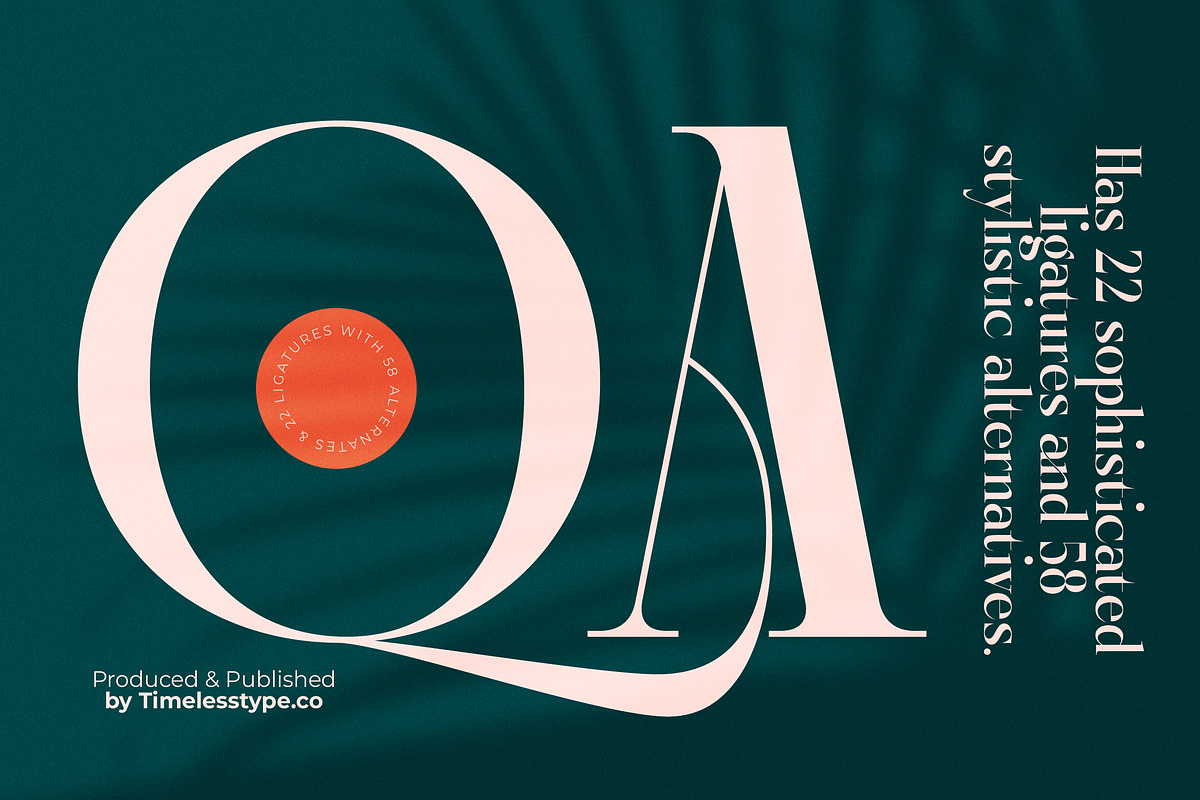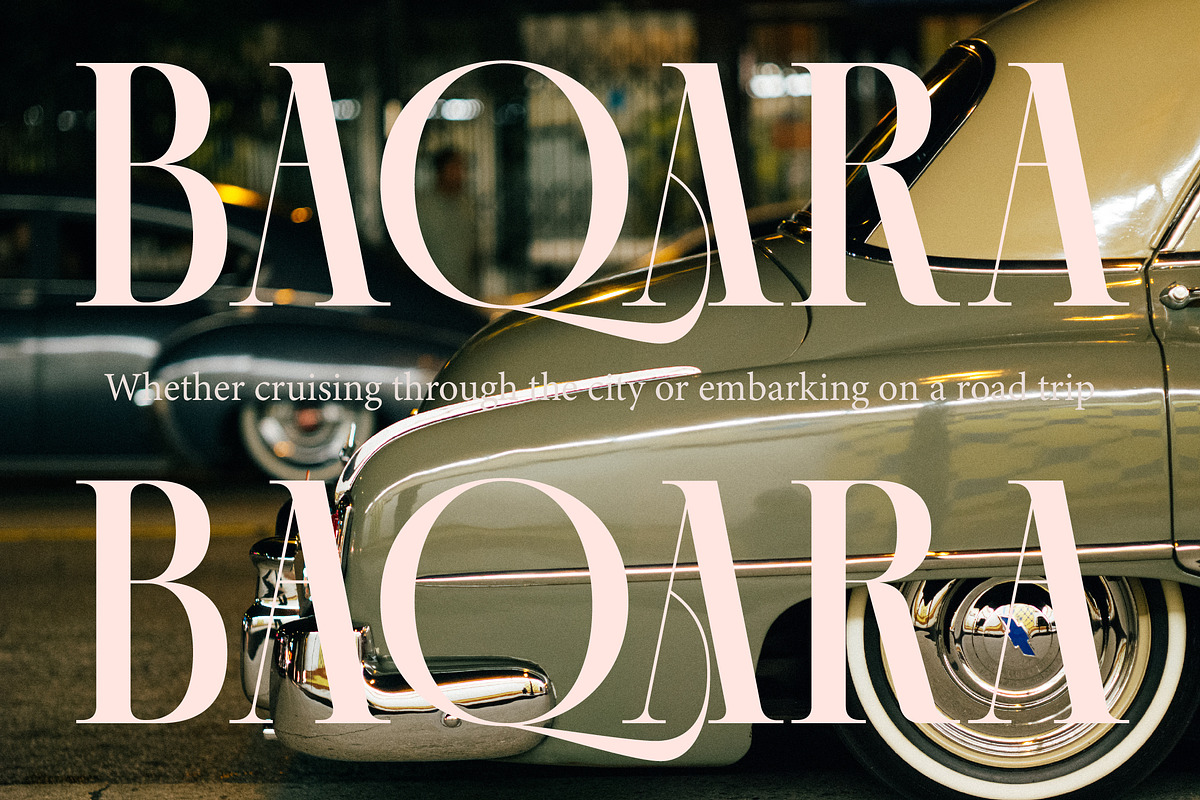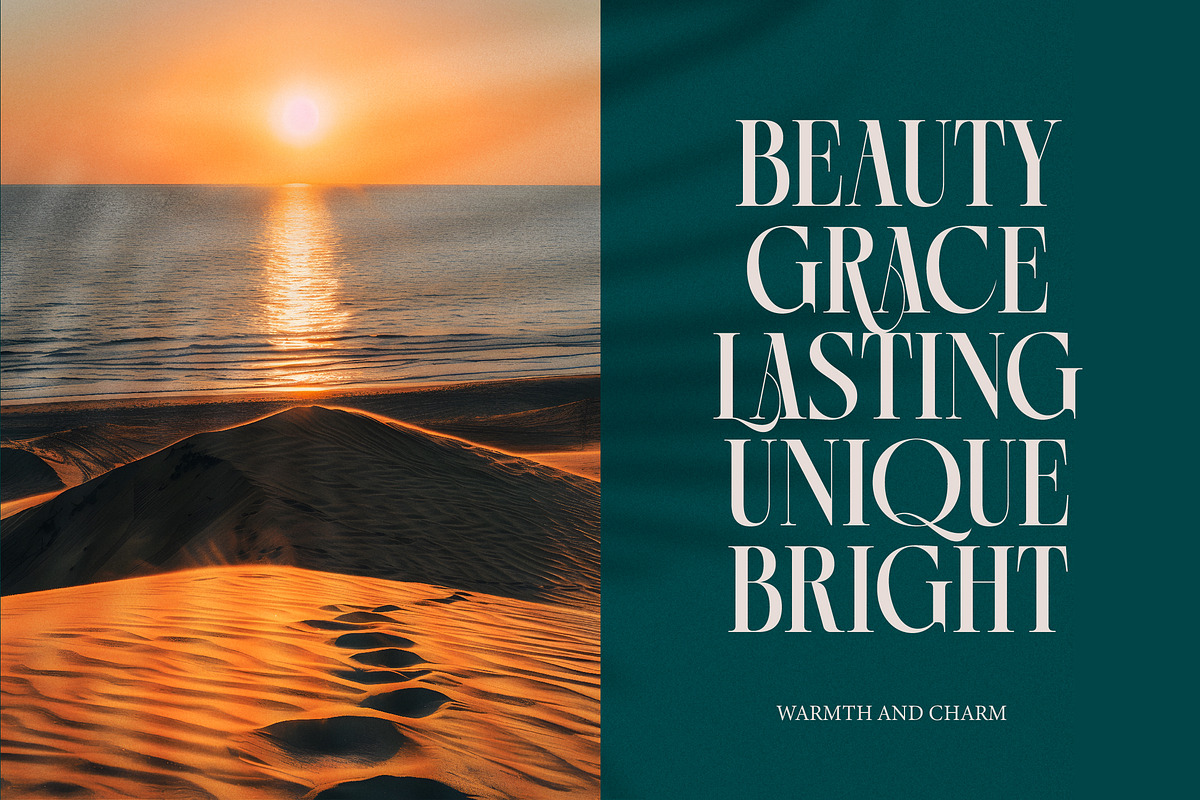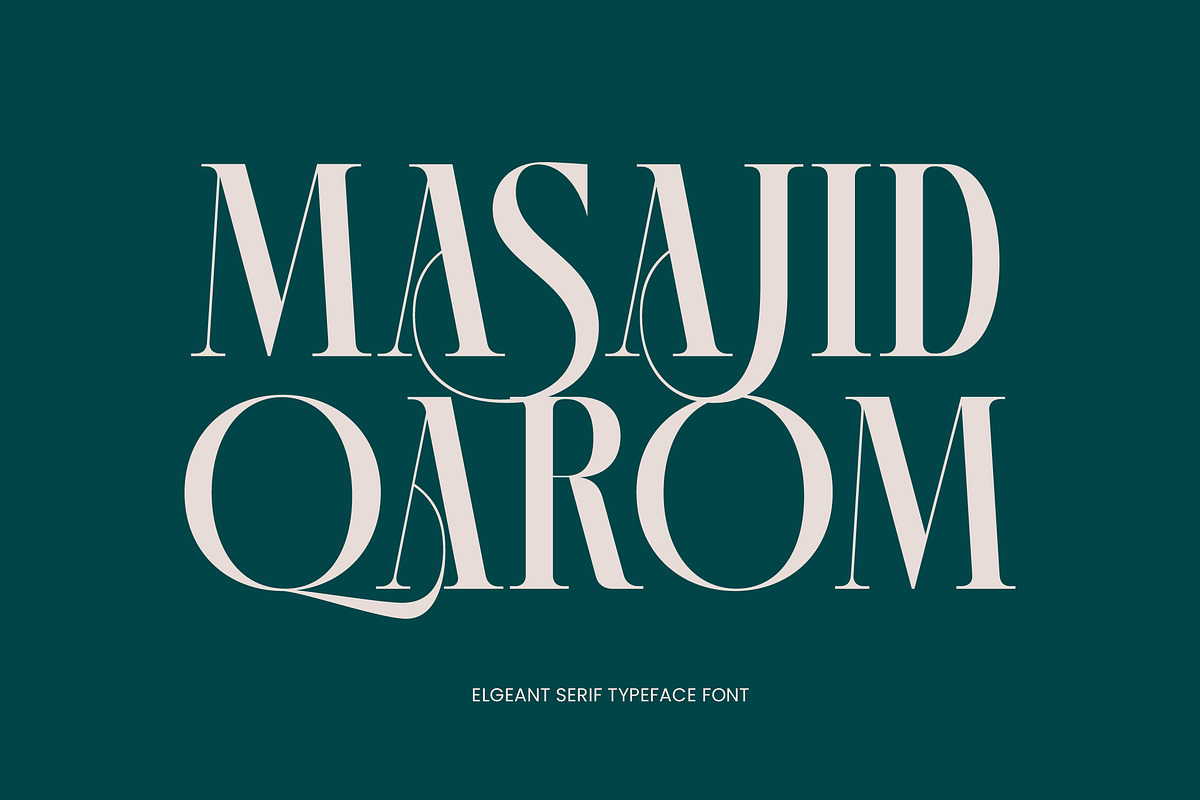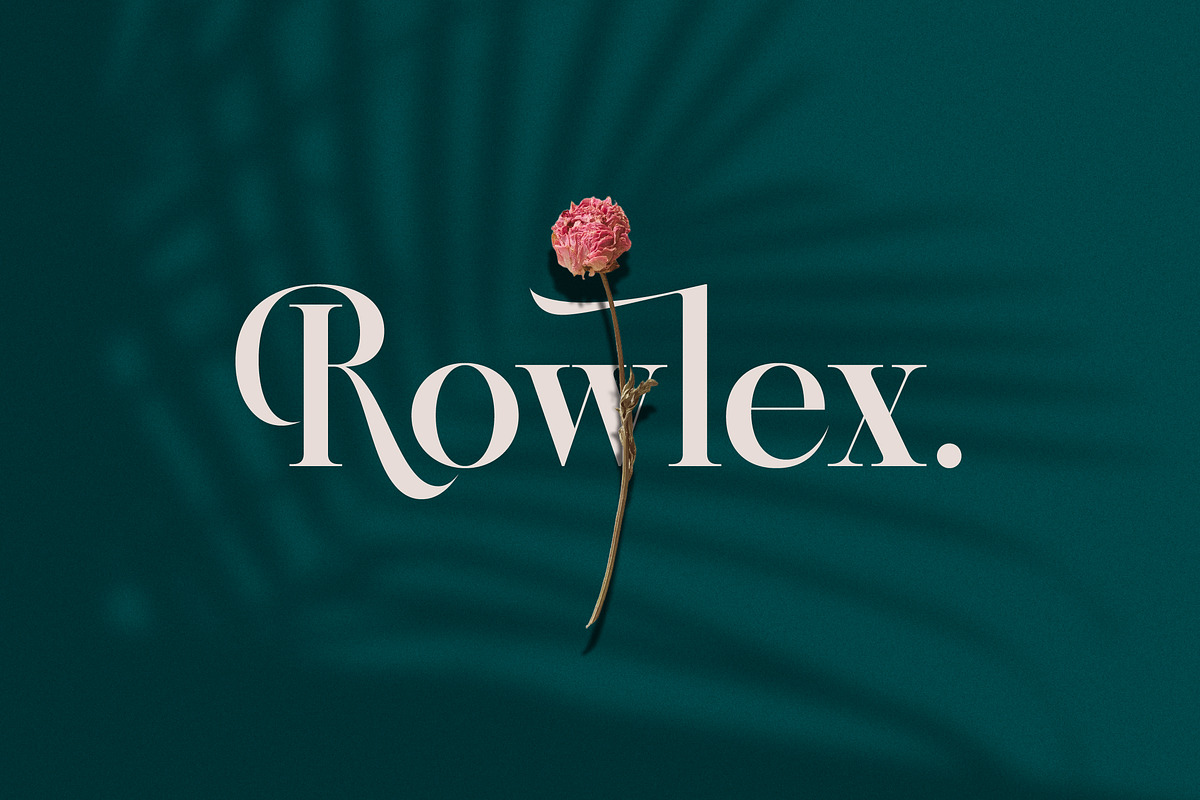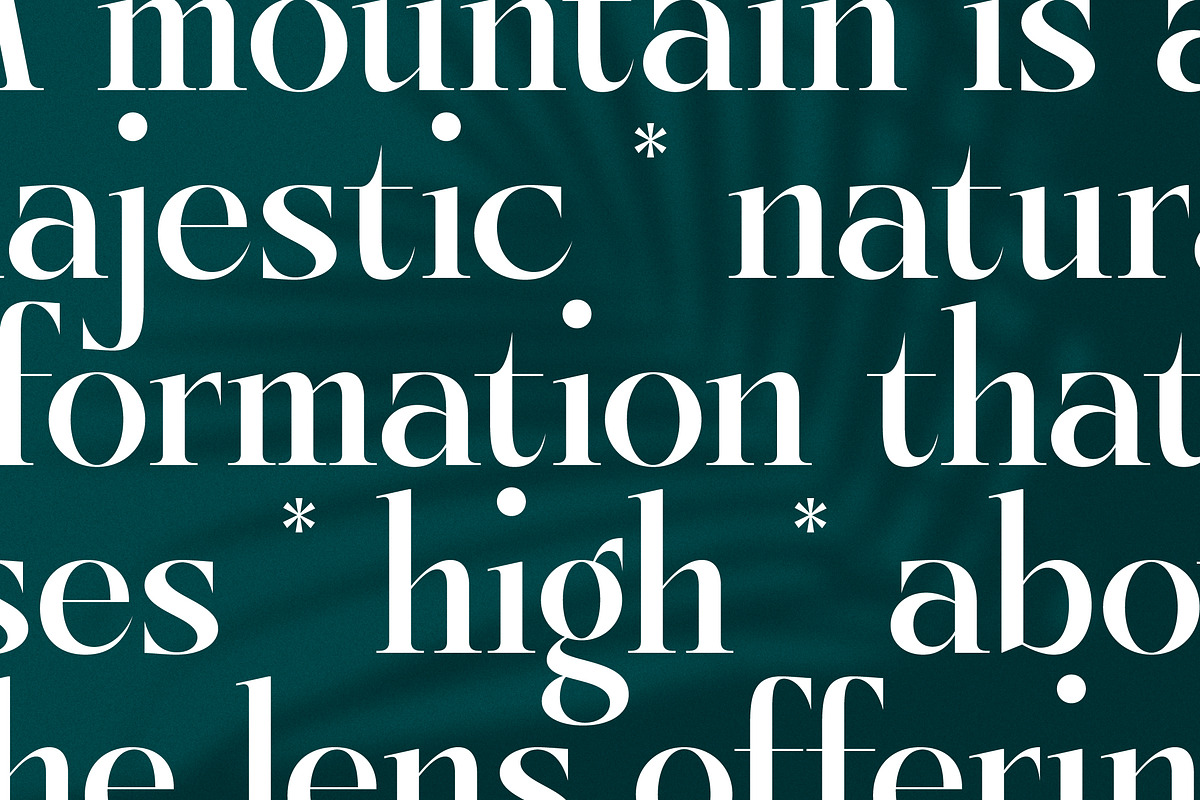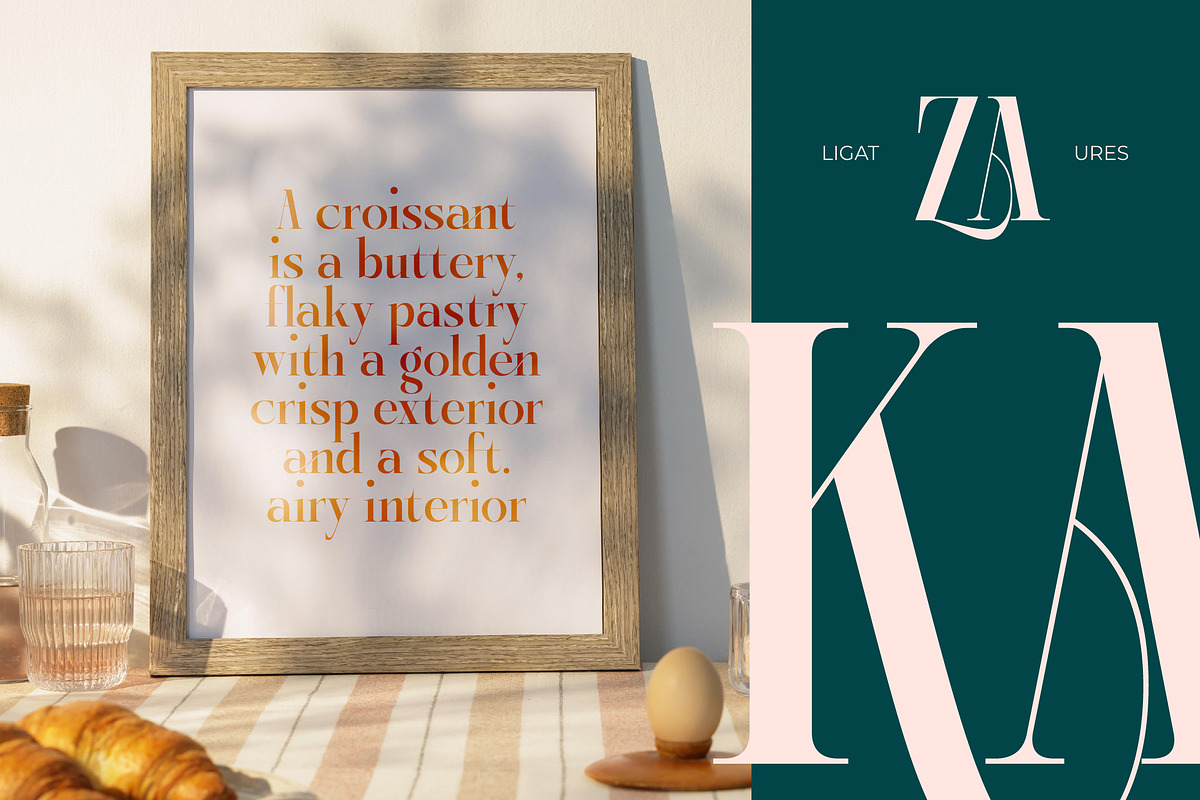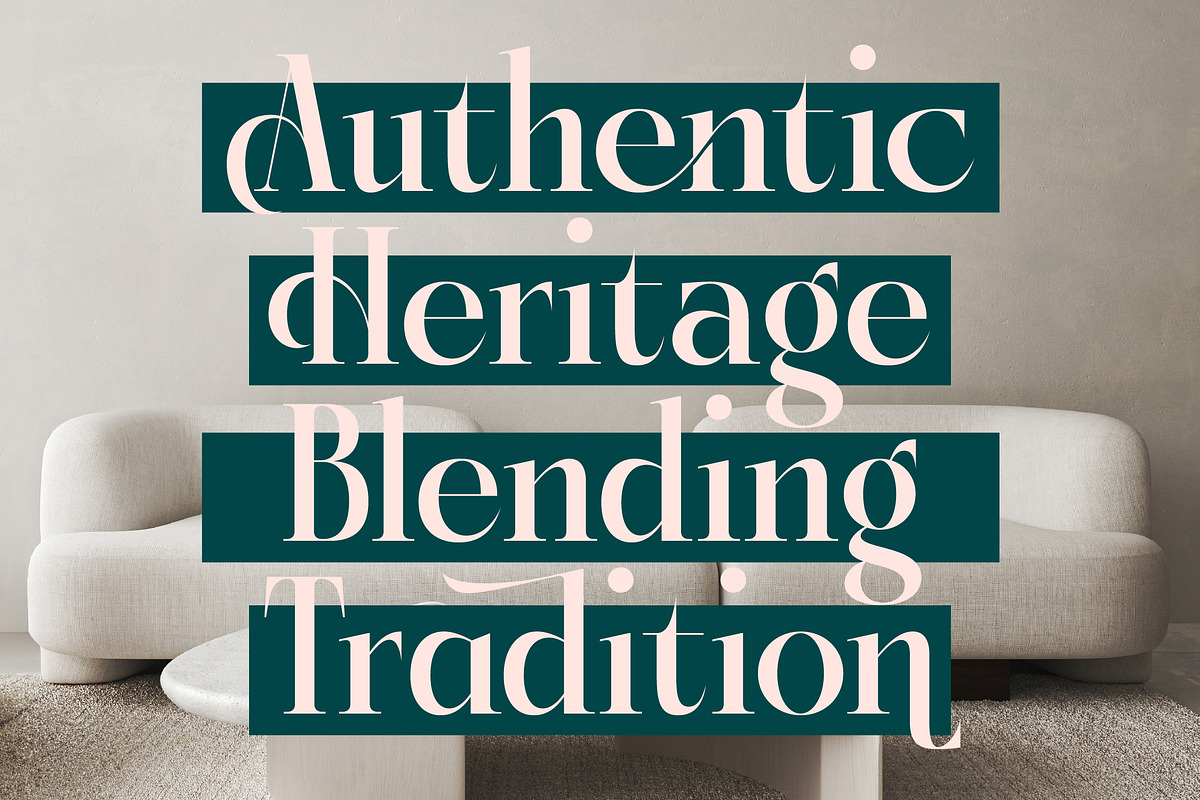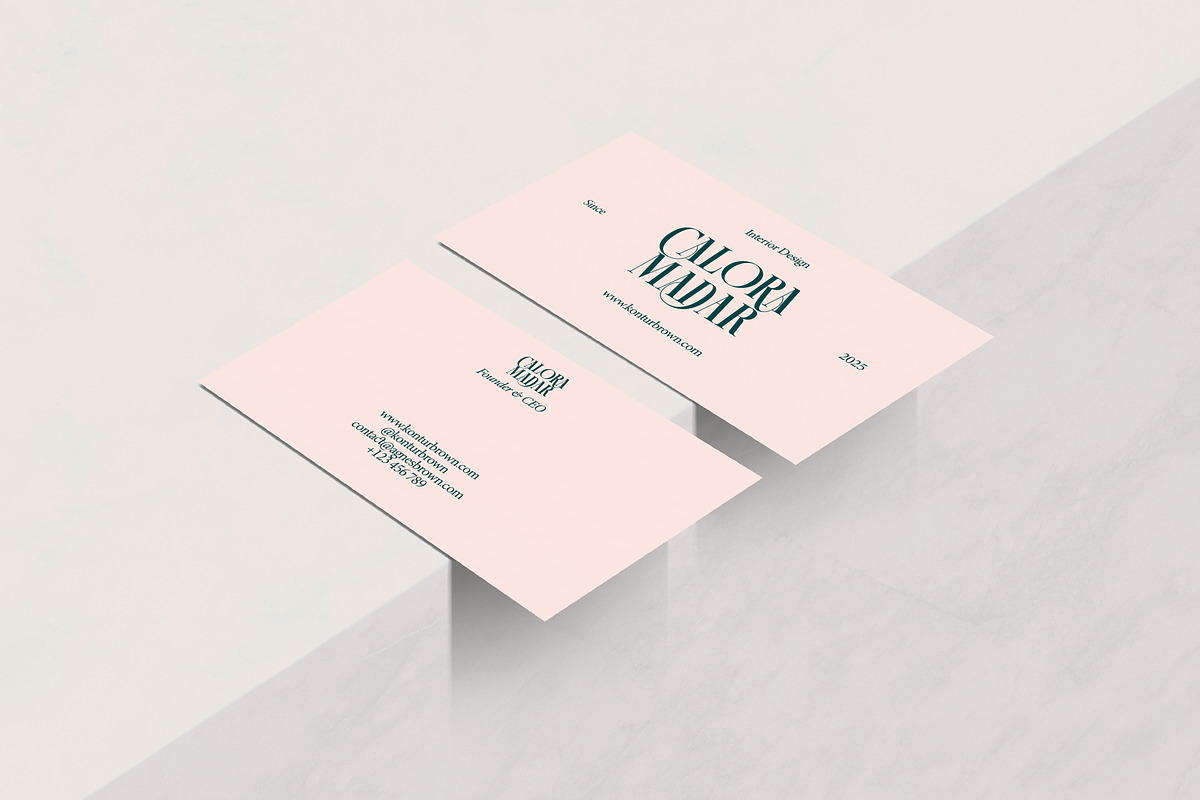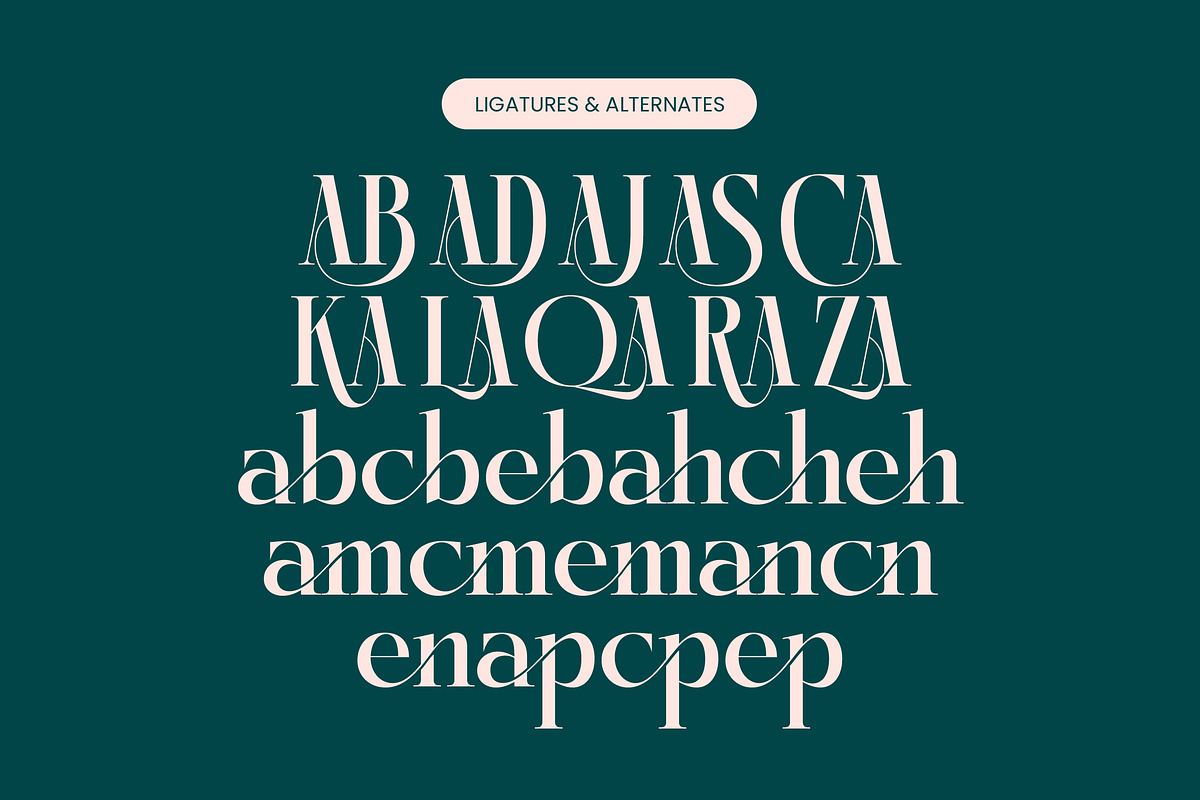
Kozan - Elegant Modern Serif
Kozan is a masterpiece of refined aesthetics, designed to bring an unparalleled level of sophistication to every creative project it touches. This font is a true celebration of elegance and timeless style, perfectly blending classic proportions with a contemporary edge.
Inspired by the delicate balance of nature and the structured precision of high fashion, this typeface draws its soul from the interplay between organic floral curves and sharp, architectural lines. It captures a sense of botanical grace combined with the boldness of a luxury runway.
This modern serif display is crafted for those seeking luxury typography that commands attention without saying a word. Its high-contrast serif design ensures a striking editorial font presence, delivering an immediate branding impact for high-end boutique identities.
Tapping into the current modern serif trend, this typeface is an essential tool for designers who want to stay ahead of the curve with editorial display fonts. It embraces the movement toward character-driven typography that feels both nostalgic and forward-thinking.
Whether you are working on a minimalist logo design or a complete brand overhaul, this font is the perfect choice for branding, editorial layouts, and chic packaging. It adds an air of exclusivity to wedding invitations and high-fashion lookbooks alike.
The typeface is packed with functional versatility, featuring over 400 glyphs including unique ligatures and creative alternates that allow for custom letterforms. Complete with extensive multilingual support and a full set of international characters, it is ready for global design challenges.
- Ligature 29 Alternate 58